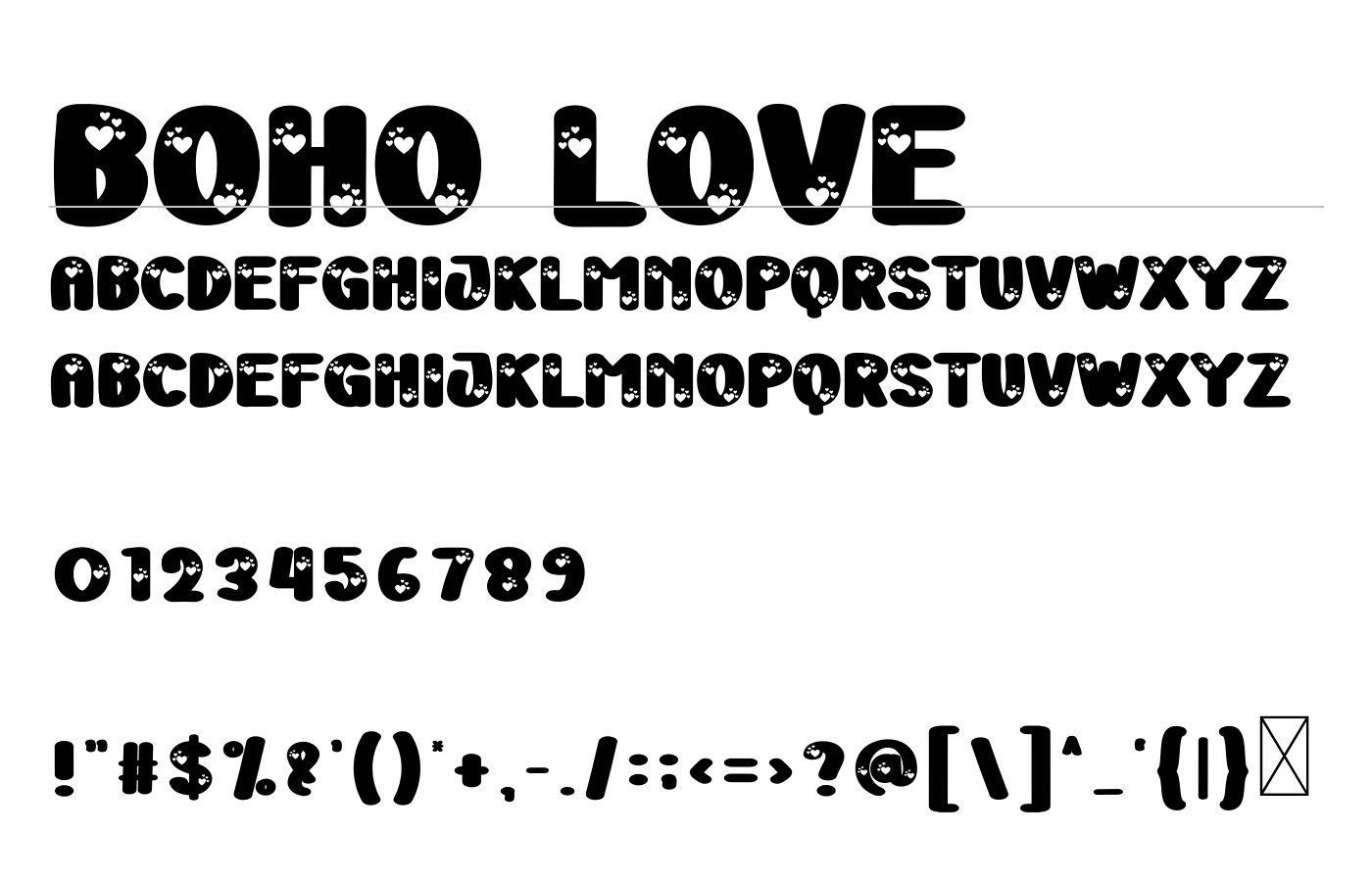
Boho Love is a playful, bold display font featuring thick, rounded letterforms filled with charming heart-shaped cutouts. Its upbeat and whimsical style makes it perfect for creative projects, children’s materials, and festive invitations where a fun and friendly vibe is desired. This font shines in headlines, logos, and packaging that aim to convey warmth and joy.
Boho Love Font
About Boho Love Font